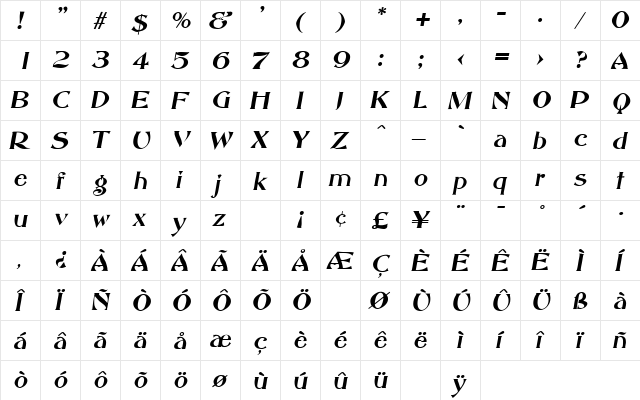
AbottOldStyle Italic Font Preview
AbottOldStyle Italic
AbottOldStyle Italic Font Details
Design Context for AbottOldStyle Typeface
AbottOldStyle carries the refined structure of traditional serif typography, with bracketed terminals and considered proportions that communicate credibility and craft. The dynamic lean of this cut emphasises speed and emphasis in any layout.